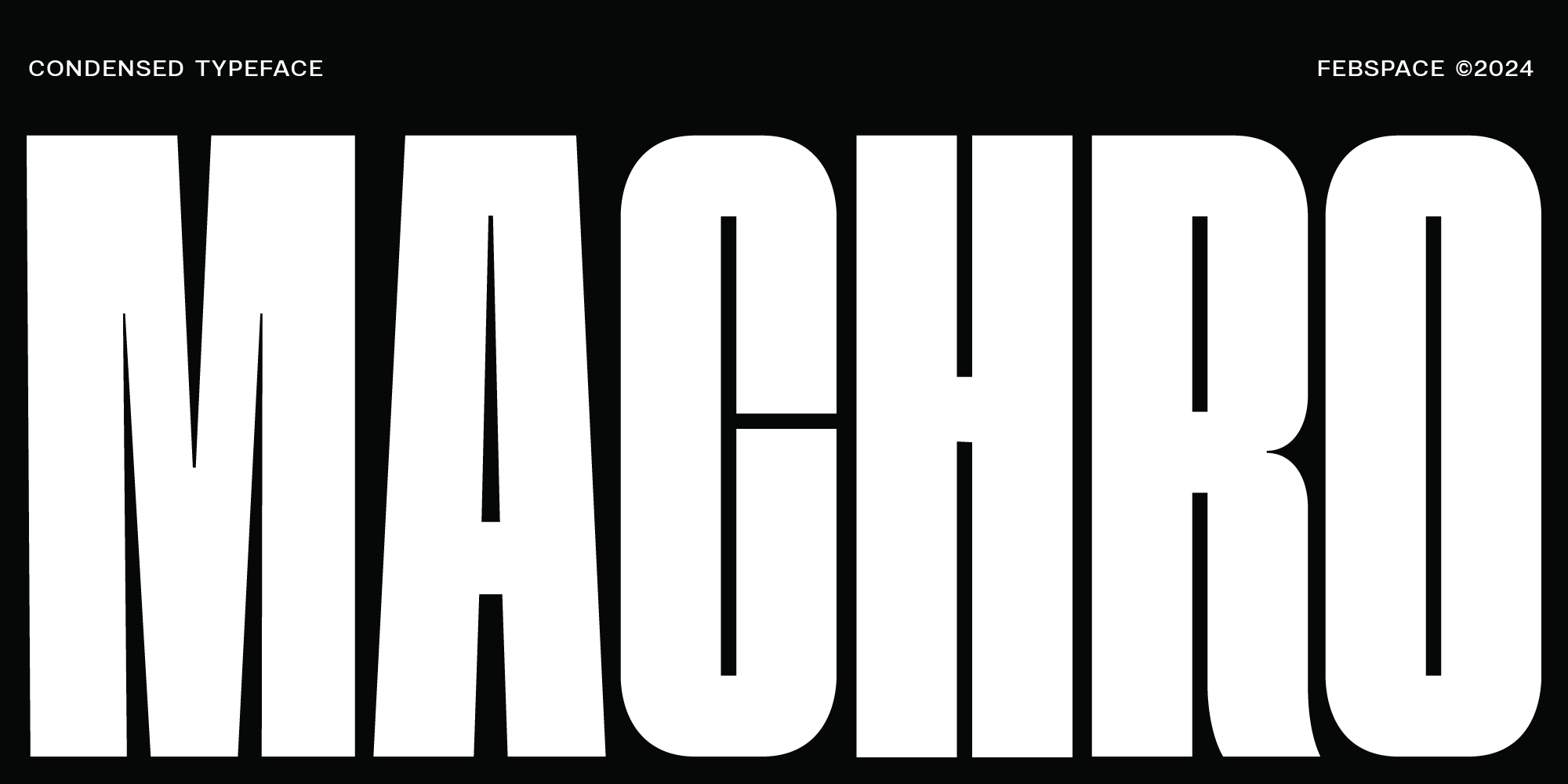
FBS Machro Font Free Download is a bold, futuristic sans-serif typeface designed for maximum impact and readability. Perfect for technology branding, industrial design, gaming interfaces, posters, and editorial projects that demand a strong, modern presence.
What makes FBS Machro Font so exciting is its sharp angles, clean lines, and geometric structure that evoke innovation and strength. It’s designed to capture attention and convey confidence in fast-paced digital environments.
The FBS Machro Font family includes multiple weights such as Regular, Bold, and Italic, providing versatile options for creating emphasis and hierarchy.
Whether you’re designing a tech startup logo, a cutting-edge game UI, or bold marketing materials, FBS Machro Font Free Download delivers clarity and futuristic style. You can test it for free, but commercial use requires a license. Let FBS Machro power up your projects with its sleek, industrial vibe.